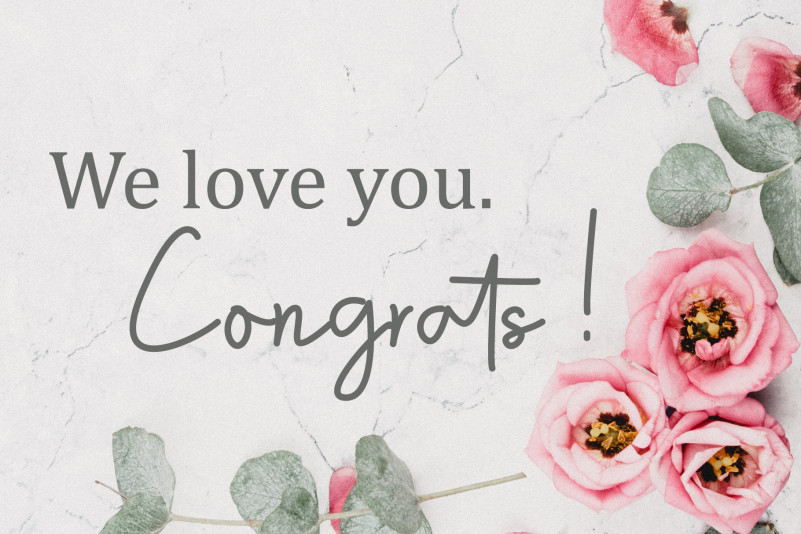
Archestra – Handwritten Script Font
Archestra – Handwritten Script Font is an elegant monoline handwritten signature script. It has an unique flow with a simple and organic look.